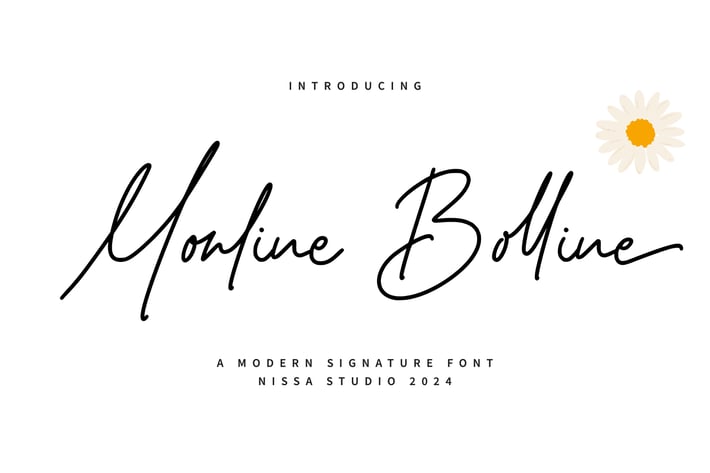
Monline Bolline - Signature Font
Monline Bolline is a beautiful script font. Its refined style will give an elegant and modern look to any of your creative projects such as logos, branding, invitations, stationery, wedding designs, social media posts, and many more!
Each Font Has:
Modern Handwritten Font
Beautiful Swash (Ending tail)
Beautiful Titling (Beginning tail)
Special Ligatures